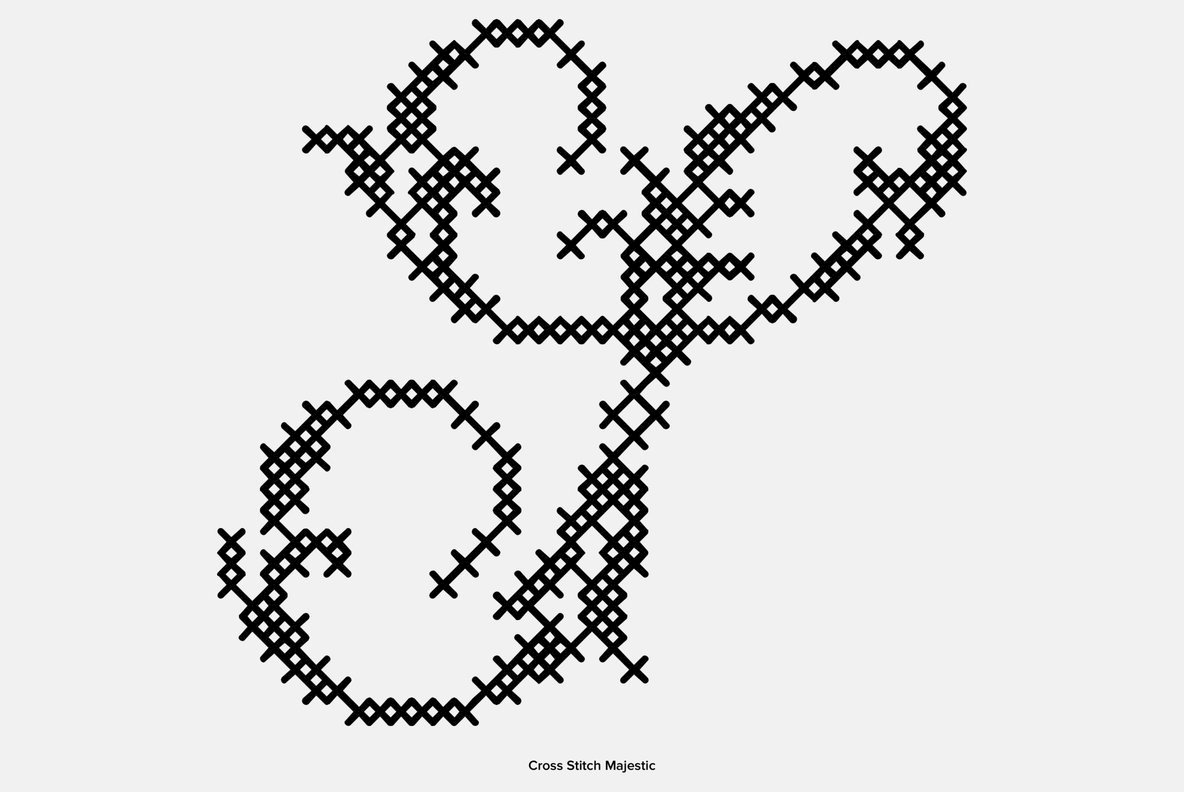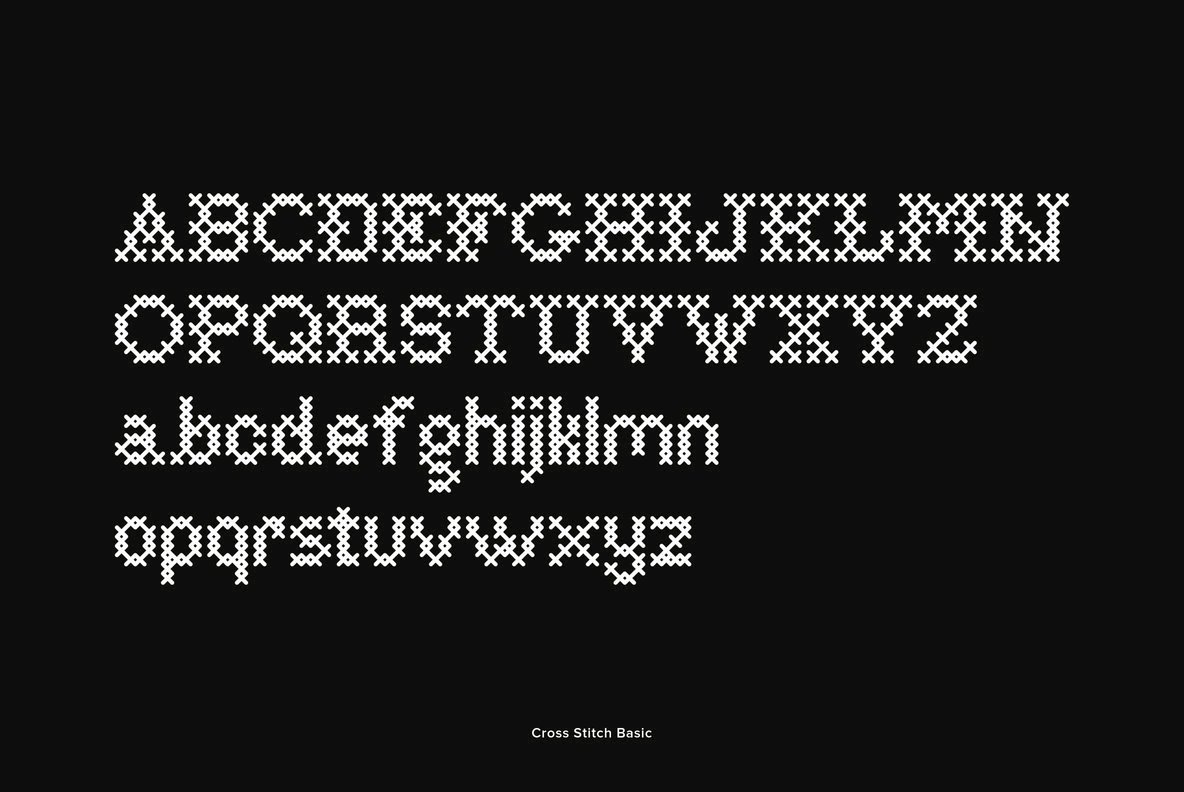
Cross Stitch Font
Cross Stitch Basic
Cross Stitch Carefree
Cross Stitch Classic
Cross Stitch Delicate
Cross Stitch Diamond Monogram
Cross Stitch Formal
Cross Stitch Gothic
Cross Stitch Majestic
Cross Stitch Medieval
Cross Stitch Monogram
Cross Stitch Ornaments
Cross Stitch Simple
Cross Stitch Solid
Cross Stitch Fonts Include:
- Cross Stitch Basic is based on upper case characters 7 stitches tall and contains the upper case characters A-Z, lower case characters a-z, numbers 0-9, ampersand, exclamation and question marks, comma, period, colon, and semi-colon.
- Cross Stitch Carefree is based on upper case characters 10 stitches tall and contains the characters A-Z and period. Several characters extend above the capital line or below the base line.
- Cross Stitch Classic is based on upper case characters 12 stitches tall and contains uppercase characters A-Z, lowercase characters a-z, numbers and punctuation.
- Cross Stitch Delicate is based on upper case characters 21 stitches tall and contains the characters A-Z and numbers 0-9.
- Cross Stitch Monogram is based on upper case characters 15 stitches tall and contains the upper case characters A-Z, numbers 0-9, ampersand, and a selection of various simple ornaments.
- Cross Stitch Formal is based on upper case characters 20 stitches tall and contains upper case characters A-Z. All characters are linked by at least one stitch.
- Cross Stitch Gothic is not intended for text use. It was designed for use as fancy monograms or initials. Cross Stitch Gothic is based on upper case characters 28 stitches tall and contains the characters A-Z. Most characters extend above the capital line or below the base line.
- Cross Stitch Majestic is not intended for text use. It was designed specifically for use as fancy monograms or initials. Cross Stitch Majestic has an uppercase alphabet, 33 stitches tall, and is located under the shift+character set keys.
- Cross Stitch Medieval is not intended for text use. It was designed specifically for use as fancy monograms or initials. Cross Stitch Medieval has an uppercase alphabet, 9 stitches tall, located under the shift+character set keys.
- Cross Stitch Monogram is based on upper case characters 15 stitches tall and contains the upper case characters A-Z, numbers 0-9, ampersand, and a selection of various simple ornaments.
- Cross Stitch Ornaments is a collection of classic stitched geometric shapes, plants, birds, and animals. There is an assortment of 47 ornaments located under the character set keys. All ornaments that are asymmetrical have a flopped version located under the shift+character key.
- Cross Stitch Simple is based on upper case characters 8 stitches tall and contains upper case characters A-Z, lower case characters a-z, numbers 0-9, ampersand, exclamation and question marks, comma, period, colon, and semi-colon.
- Cross Stitch Solid is based on upper case characters 14 stitches tall and contains the characters A-Z, numbers 0-9, and ampersand..
Gerald Gallo is a professional graphic designer.While designing trademarks and logotypes, Gerald often designed unique lettering. It was a natural step to create entire alphabets from some of these designs. However, it was very difficult to have a font produced before the advent of the personal compute...